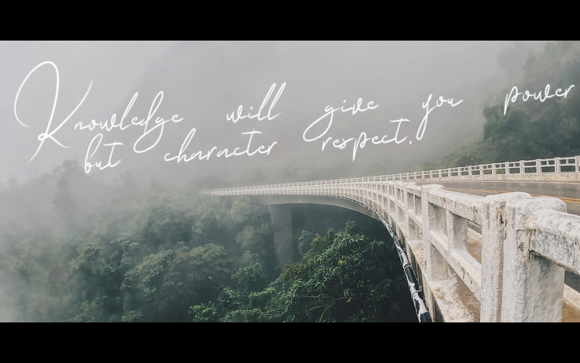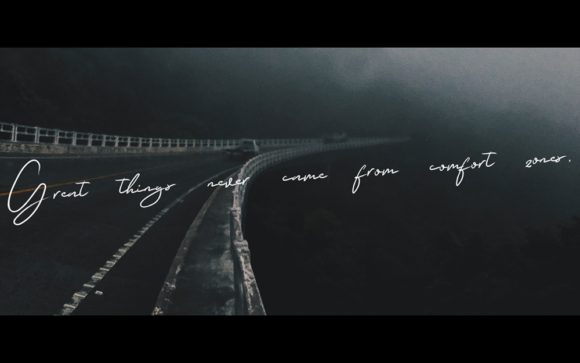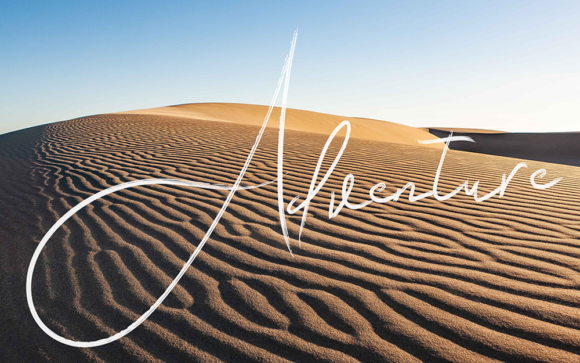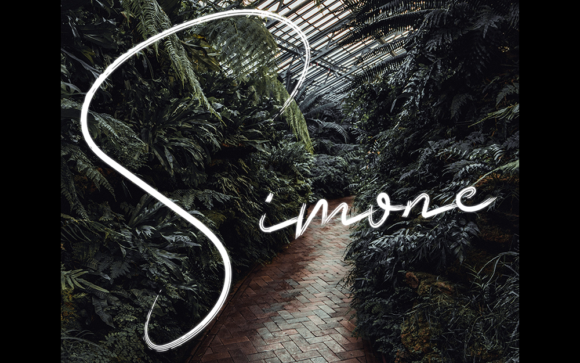
Simone Font
The Simone is a striking brush font. It has an amazing handwritten touch which can be used to add a natural feel to your designs.
It’s perfect for social media, Instagram posts, labeling, clothing, covers, and much more!